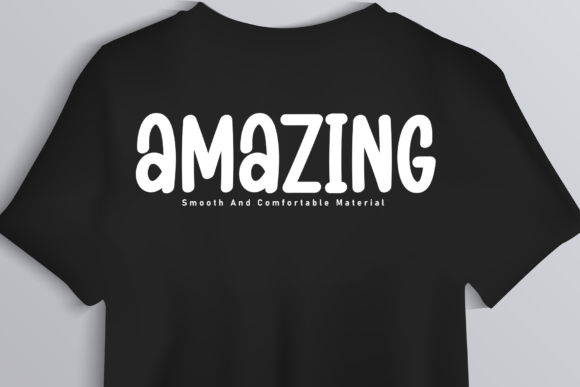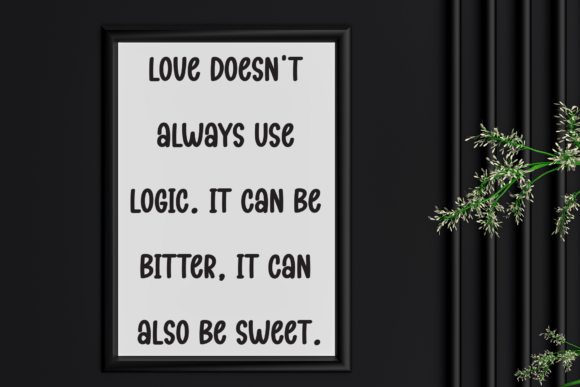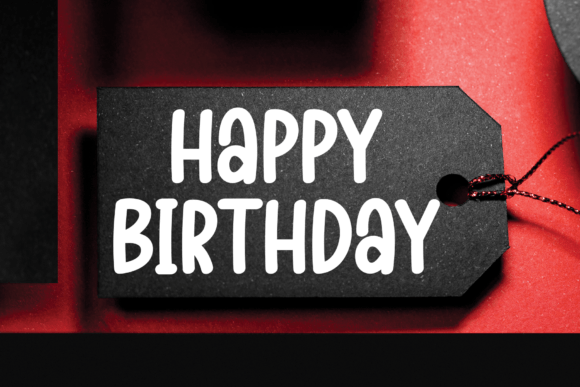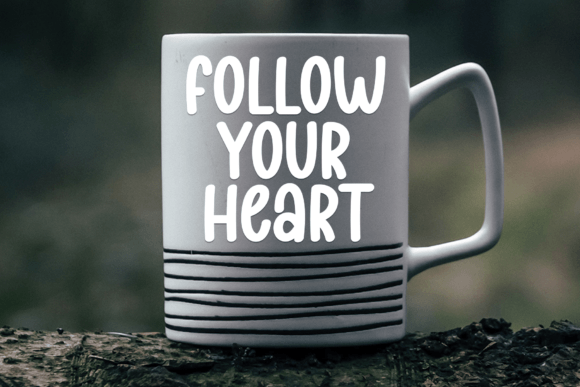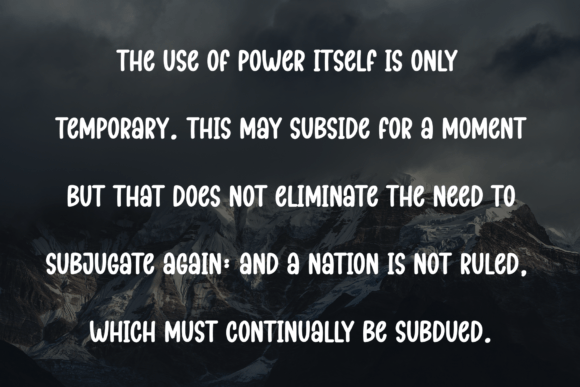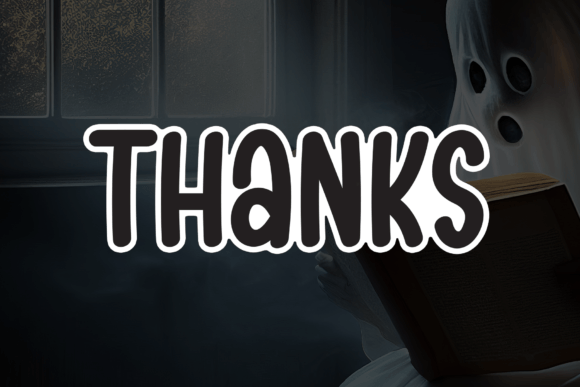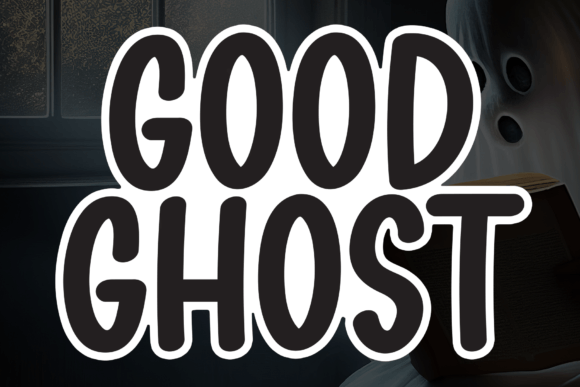
Introducing Good Ghost: The Sweet and Friendly Handwritten Display Font
Are you looking for a font that adds a touch of whimsy and fun to your designs? Look no further than Good Ghost, a sweet and friendly handwritten display font that’s perfect for a variety of creative projects. In this article, we’ll take a closer look at Good Ghost and explore its features, uses, and benefits for designers and crafters.
What is Good Ghost?
Good Ghost is a handmade display font that’s designed to bring a smile to your face. With its cute and fun lettering style, this font is ideal for adding a personal touch to your designs. Whether you’re creating wedding invitations, greeting cards, or social media graphics, Good Ghost is the perfect choice for anyone looking to add a bit of personality to their work.
Key Features of Good Ghost
- Handwritten style: Good Ghost has a beautiful, handwritten feel that’s perfect for creating personal and unique designs.
- Cute and fun: This font is designed to be playful and fun, making it ideal for projects that require a lighthearted touch.
- Display font: Good Ghost is a display font, which means it’s perfect for headlines, titles, and other prominent text elements.
- Easy to read: Despite its playful style, Good Ghost is easy to read, even at smaller sizes.
Uses for Good Ghost
Good Ghost is a versatile font that can be used in a variety of creative projects. Here are some ideas to get you started:
- Wedding invitations: Add a touch of romance and whimsy to your wedding invitations with Good Ghost.
- Greeting cards: Create fun and playful greeting cards for birthdays, holidays, and other special occasions.
- Social media graphics: Use Good Ghost to add a personal touch to your social media graphics, such as quote graphics, announcements, and promotions.
- Party decorations: Create custom party decorations, such as banners, garlands, and signs, with Good Ghost.
- Branding and packaging: Use Good Ghost to add a playful touch to your branding and packaging materials, such as labels, business cards, and brochures.
Good Ghost offers a range of benefits for designers and crafters, including:
- Unique and creative designs: With Good Ghost, you can create unique and creative designs that stand out from the crowd.
- Time-saving: Good Ghost can save you time and effort, as you can quickly create professional-looking designs without spending hours on lettering and typography.
- Customization options: You can customize Good Ghost to fit your design needs, such as adjusting the size, color, and style.
Tips for Using Good Ghost
Here are some tips for getting the most out of Good Ghost:
- Experiment with different sizes and colors: Try out different sizes and colors to see what works best for your design.
- Pair with other fonts: Good Ghost pairs well with other fonts, so feel free to experiment with different combinations.
- Use for headlines and titles: Good Ghost is perfect for headlines and titles, so use it to add a touch of personality to your designs.
- Have fun: Most importantly, have fun with Good Ghost! This font is designed to be playful and fun, so don’t be afraid to get creative and try new things.
Good Ghost is a sweet and friendly handwritten display font that’s perfect for adding a touch of whimsy and fun to your designs. With its cute and playful style, this font is ideal for a variety of creative projects, from wedding invitations and greeting cards to social media graphics and party decorations. Whether you’re a designer or crafter, Good Ghost is a great choice for anyone looking to add a personal touch to their work. So why not give it a try and see what amazing designs you can create?